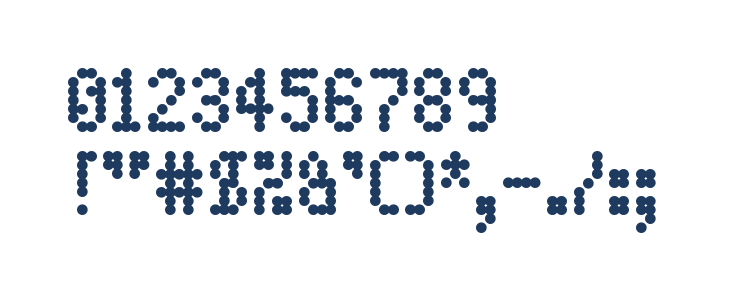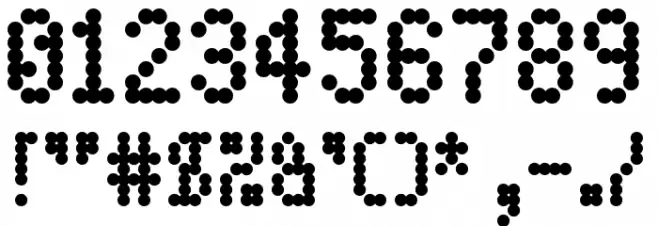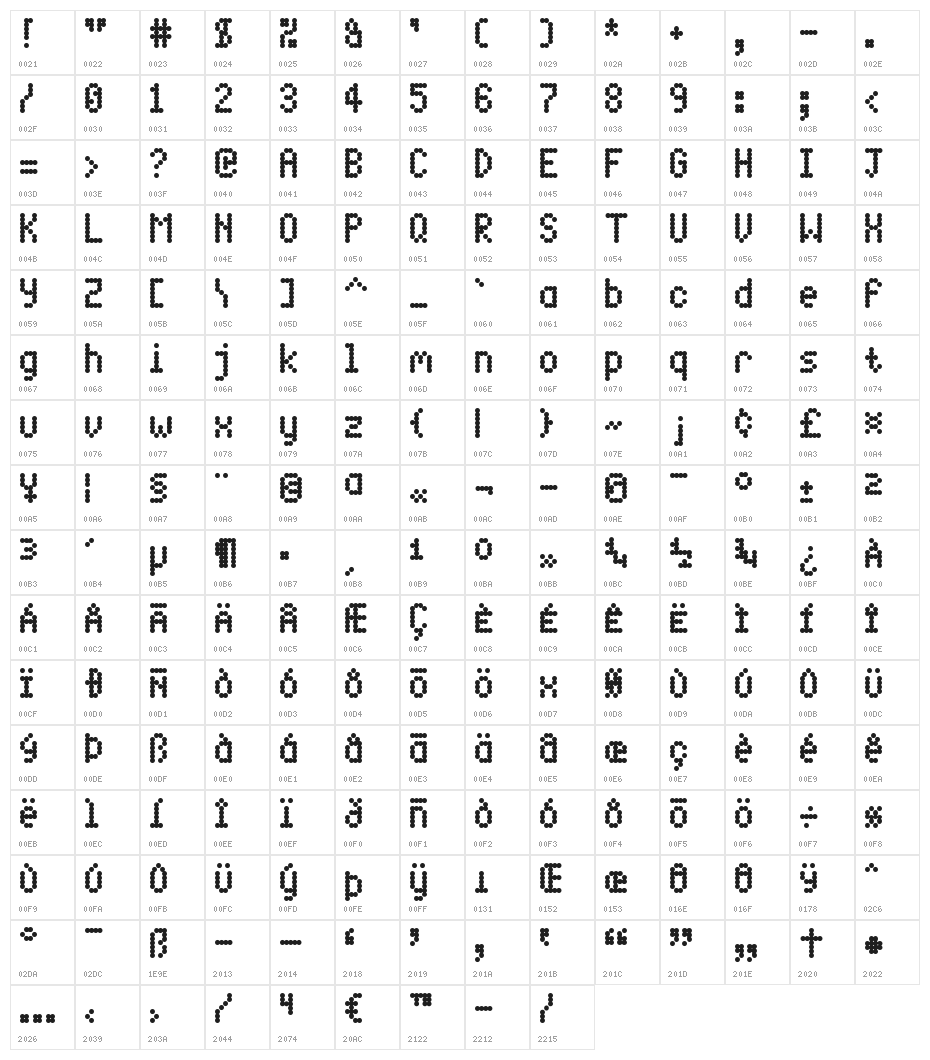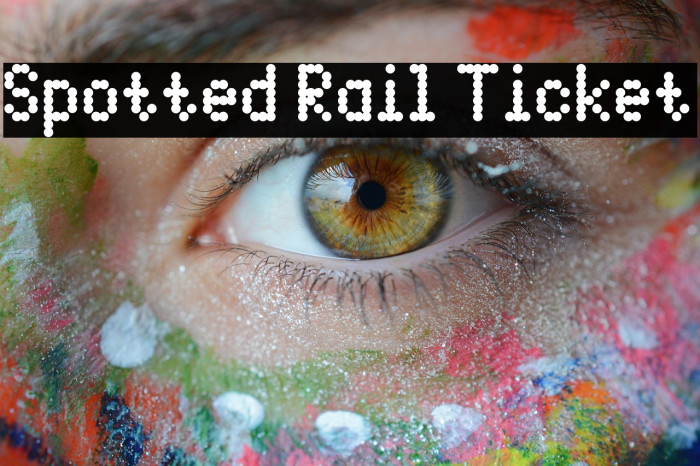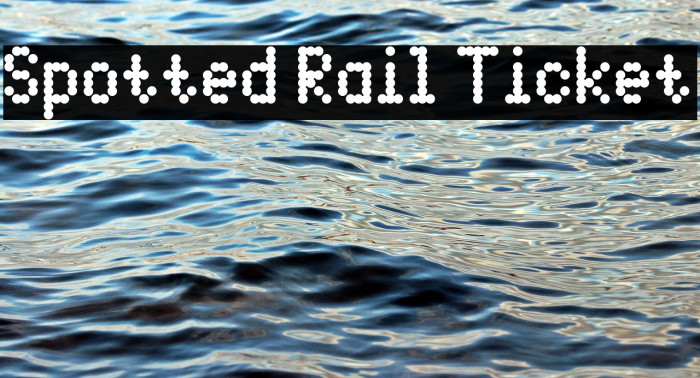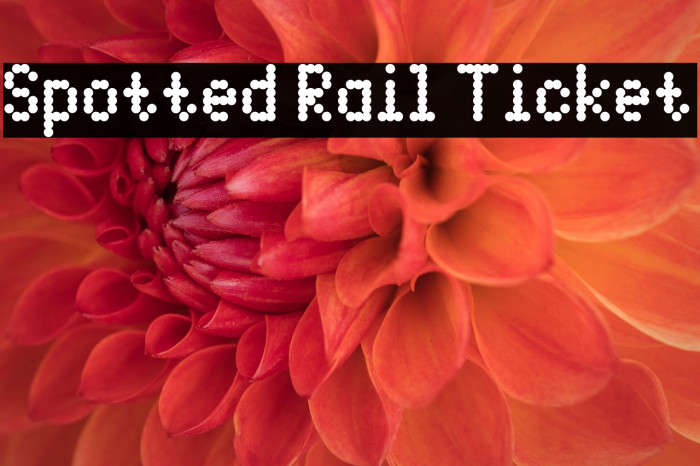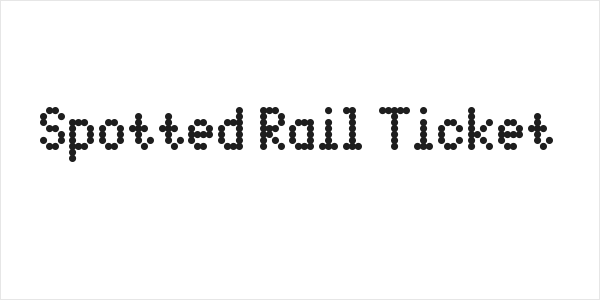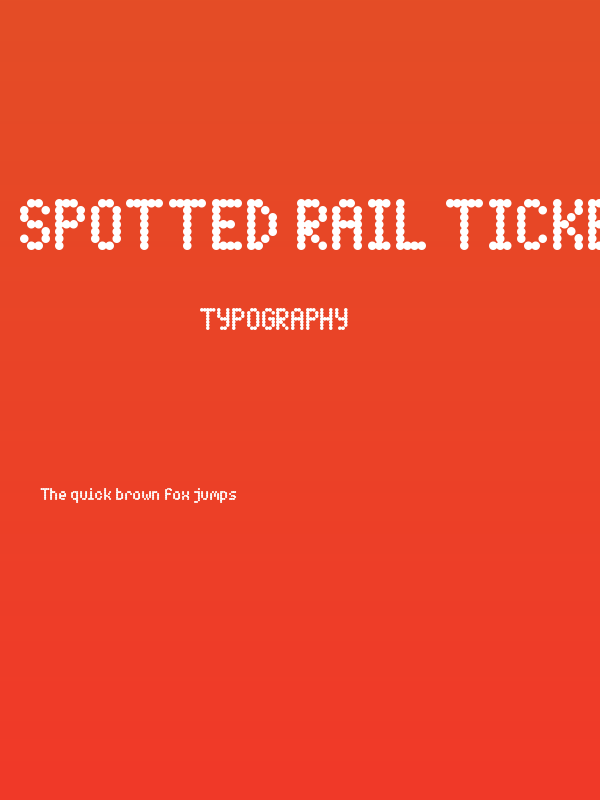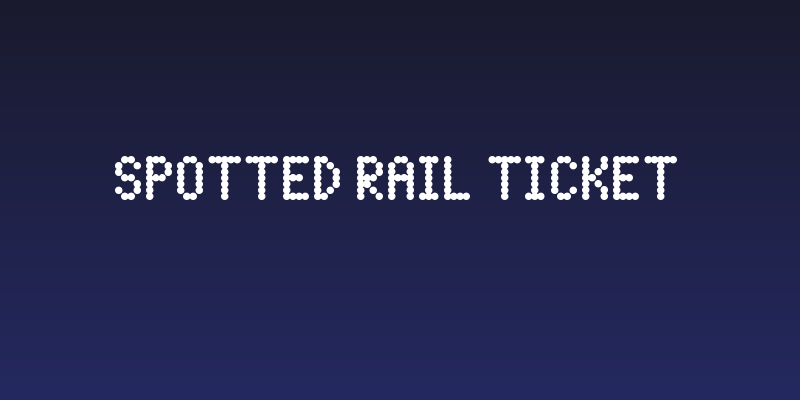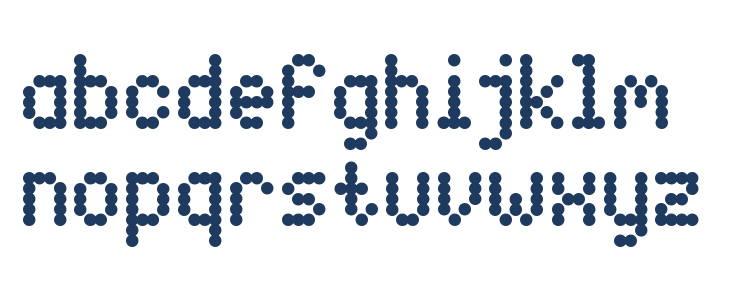
Spotted Rail Ticket Font
Spotted Rail Ticket Description
This font features a unique dotted design, where each character is composed of a series of evenly spaced dots, creating a digital and playful appearance. The uppercase and lowercase letters maintain a consistent height and width, contributing to a uniform look. The numbers and special characters follow the same dotted pattern, ensuring a cohesive style throughout. This font's geometric and modular structure gives it a modern and innovative feel, making it stand out in any design project. The spacing between characters is normal, allowing for easy readability while maintaining its distinctive style.
| Use Case | Headlines, Logos, Digital Displays |
| Proposed Projects | Ideal for digital displays, tech-themed designs, children's books, and creative posters. |